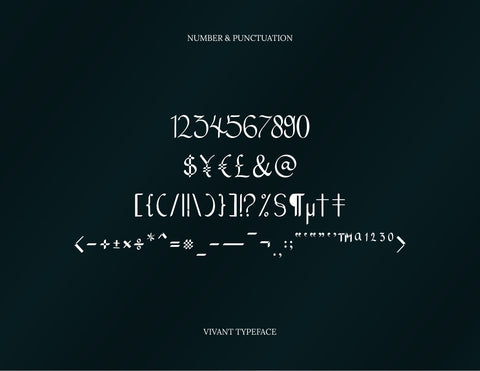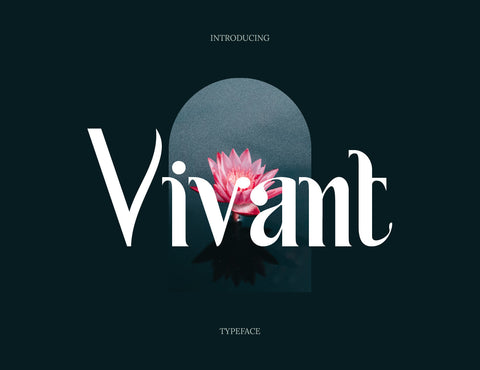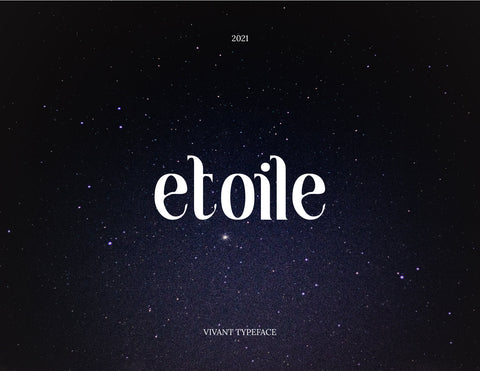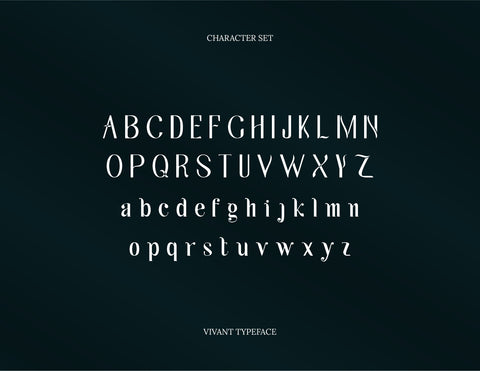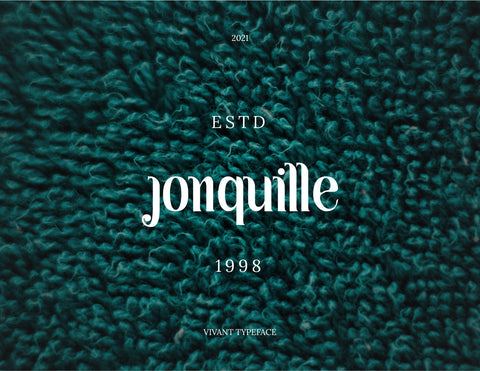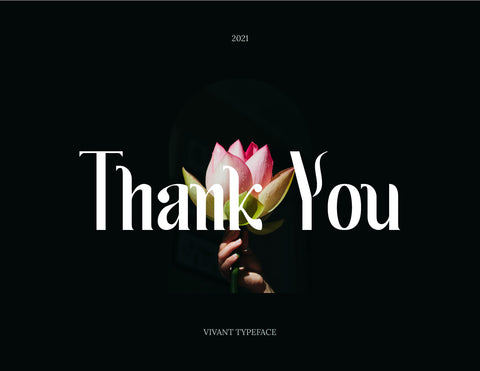
Vivant Serif Font
The one of particular Typeface or Serif Font; Vivant. It has bold and straight body with cursive creatures on the side of it. Its creatures make "Vivant" is type of neat and clear font without any specials dots or ornament on it. “Vivant” is from French language means living, alive, spirited, or lively. The name inspiration made because of it pertinence; use for floral or natural design. Bring simple, flawless, and soft vibes; "Vivant" is appropriate for floral design, letter, card, poster, brand, cosmetics, etc. The design will look more powerful, artistic, and soft at the same time.